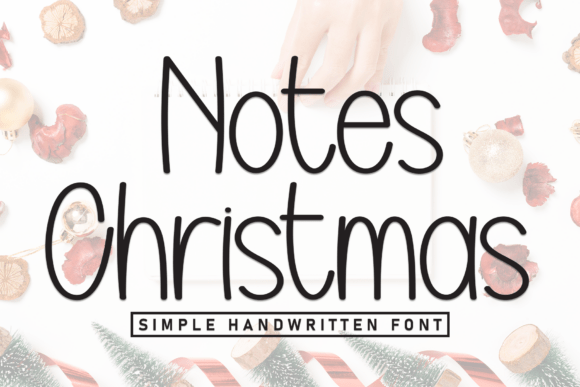
Notes Christmas: A Designer’s Real-World Review
First Glance: Warm, Hand-Crafted, Unhurried Joy
Opening Notes Christmas feels like unwrapping a carefully tied gift—paper slightly crinkled, ribbon looped just so. It’s not flashy or ironic. It’s warm, gently irregular, and quietly confident. The letterforms carry the soft pressure of a fine nib on textured paper: subtle swelling in strokes, delicate terminals, and a rhythm that breathes rather than marches. This isn’t a script font pretending to be calligraphic—it’s a display font rooted in tactile craft, with just enough structure to hold its own in professional work. Its personality leans nostalgic but never costumed; it whispers “handmade holiday” without shouting “Christmas sale.” That balance is rare—and valuable.
Where Notes Christmas Earns Its Place
As a display font, Notes Christmas shines brightest where intention matters more than volume: logo design for artisanal bakeries, small-batch candle brands, or indie stationery lines; packaging design for premium hot chocolate blends or hand-poured soy wax candles; and invitations where warmth and sincerity outweigh trendiness. I’ve used it successfully in editorial design for seasonal magazine features—paired with a crisp serif for body text—and in social media graphics where a single phrase (“Gather Well,” “Made With Care”) needed emotional resonance, not just visibility.
It works beautifully in web design headers—not as body copy, never—but as a hero banner font that sets tone before a single word is read. On printable design like greeting cards or recipe cards, Notes Christmas adds quiet luxury. For digital products like Canva templates or Cricut-ready SVG bundles, it delivers instant seasonal credibility without looking templated. And yes—it holds up in merchandise: screen-printed on linen tea towels, foil-stamped on kraft gift boxes, even laser-etched onto wooden ornaments. Its weight and spacing translate well across substrates.
What It Does Well (and What It Doesn’t)
- Brand identity: Builds immediate mood and memorability—especially for small businesses leaning into authenticity over algorithm-friendly polish.
- Packaging design: Elevates perceived value. Paired with uncoated paper and muted palettes, Notes Christmas signals care in both product and presentation.
- Social media graphics: Stops the scroll—not through contrast, but through calm. Works best in square or vertical formats with generous whitespace.
- Printable products: Prints cleanly at 12–72 pt. No ink bleed or stroke collapse, even on economical cardstock.
But here’s the honest part: Notes Christmas isn’t built for long reads, tight layouts, or low-resolution screens. It’s not a workhorse. It’s a spotlight. Use it for short phrases, brand marks, quotes, or decorative accents—not subheadings, captions, or navigation labels. Its lowercase ‘a’, ‘g’, and ‘y’ have distinctive shapes that reward attention but won’t scale down gracefully below 14 pt in print or 20 px on screen. And while it’s expressive, it’s not playful in a cartoonish way—so avoid pairing it with overly whimsical elements unless you’re aiming for deliberate irony.
Readability, Trust & Visual Hierarchy—No Guesswork
Notes Christmas strengthens hierarchy by *withholding* information—not shouting, but inviting closer reading. That affects audience trust: when used thoughtfully, it signals the brand values craft and intention, not speed or scale. In logo design, it lends approachability without sacrificing professionalism—especially next to a clean sans serif secondary typeface. But misused? It can unintentionally signal “amateur hour.” Overuse in a single layout flattens contrast. Too much tracking tightens its charm into clutter. And inconsistent case usage (mixing all-caps headlines with mixed-case body) breaks rhythm—stick to title case or sentence case for phrases, and reserve all-caps only for very short brand marks.
Practical Designer Notes—Test Before You Commit
Before locking Notes Christmas into any client or business project, do these five things:
- Test it in black and white—no color tricks. Does the weight hold? Do counters stay open?
- Check readability at your smallest intended size: on a product label, in a mobile ad, or on a tiny hang tag.
- Place it on real mockups—not just Photoshop layers. Try it on actual kraft paper, matte laminate, or a fabric swatch.
- Compare uppercase vs. lowercase use. The caps have stronger presence; the lowercase offers more nuance. Don’t assume one fits all contexts.
- Review spacing—kerning pairs like “To”, “We”, and “The” often need manual adjustment. And always test font pairing: try Notes Christmas beside a sturdy serif (like Merriweather), a neutral sans (like Inter), a restrained script (not another display font), and a clean handwritten font for contrast. Avoid pairing it with other display fonts—that’s visual noise, not harmony.
Final Thought: A Tool, Not a Trend
Notes Christmas isn’t about checking a “festive” box. It’s about choosing typography that aligns with how a brand shows up in the world—thoughtfully, warmly, and without apology. It won’t solve weak messaging or poor layout. But in the right hands, with clear intent and careful execution, it deepens connection. It makes “season’s greetings” feel personal. It turns “hand-poured” into something you can almost smell. And in an era of infinite fonts and diminishing attention, that kind of quiet impact is worth every penny—and every minute of testing.